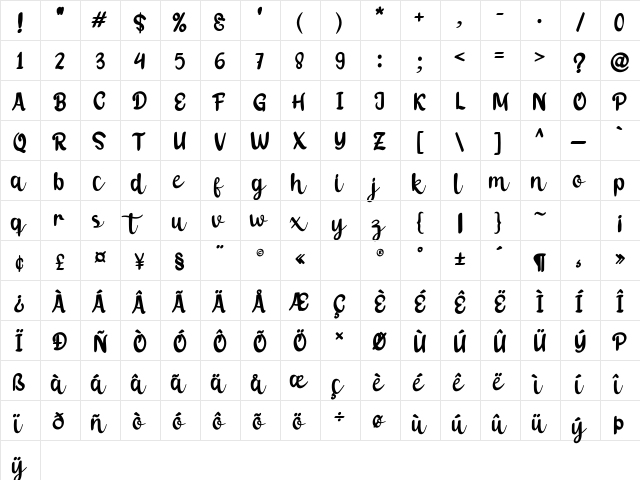
Bebast Regular
| Designer | rozi |
Bebast is a composed and adaptable typeface that performs quietly and consistently across a wide range of design contexts.